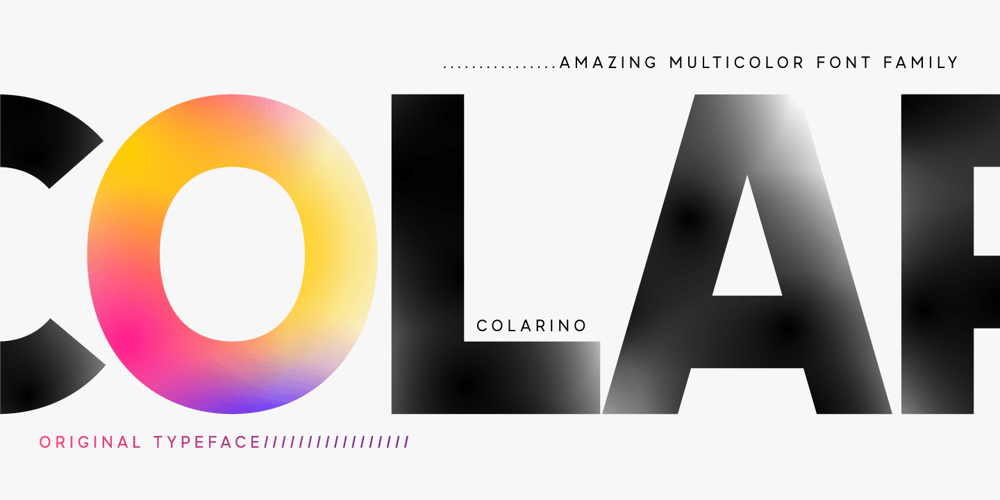
Colarino
Colarino font
Colarino Font Family was designed by Lauritta Ivanova and published by Luxfont. Colarino contains 38 styles and family package options. Introducing the incredible, multicolored Colarino family. They are a unique family with perfect color transitions. Modern color combination was used. Letters do not just have a banal linear gradient, here the colors are randomly mixed in a different order, which resembles a watercolor paint or a complex vector mesh. Some variants resemble a sunset, others a sea wave and a cote d’azur. Color in the letters is complemented by transparency, which allows them to perfectly fit into both light and dark backgrounds – the letters take on the background color and do not look superfluous.Unique multi-colored design. Perfect for trending covers and headlines. Looks great in advertising and attracts attention. Very original and versatile family. This font family is based on the Regular font Pacardo – which means that if necessary you can combine these two families and they will be absolutely stylistically identical and complement each other.Check the quality before purchasing and try the FREE DEMO version of the font to make sure your software supports color fonts. P.s. Have suggestions for color combinations? Write me an email with the subject “Colarino Color” on: ld.luxfont@gmail.com Features: · Free Demo font to check it works.· Uppercase and lowercase the same size but different colors.· Transparency in letters.· Mega high-quality coloring of letters.· Kerning. IMPORTANT: – Multicolor version of this font will show up only in apps that are compatible with color fonts, like Adobe Photoshop CC 2017.0.1 and above, Illustrator CC 2018. Learn more about color fonts & their support in third-party apps on www.colorfonts.wtf-Don’t worry about what you can’t see the preview of the font in the tab “Individual Styles” – all fonts are working and have passed technical inspection, but not displayed, they just because the website MyFonts is not yet able to show a preview of colored fonts. Then if you have software with support colored fonts – you can be sure that after installing fonts into the system you will be able to use them like every other classic font. Question/answer: How to install a font? The procedure for installing the font in the system has not changed. Install the font as you would install the other classic fonts. How can I change the font color to my color? · Adobe Illustrator:Convert text to outline and easily change color to your taste as if you were repainting a simple vector shape. · Adobe Photoshop: You can easily repaint text layer with Layer effects and color overlay. ld.luxfont@gmail.com